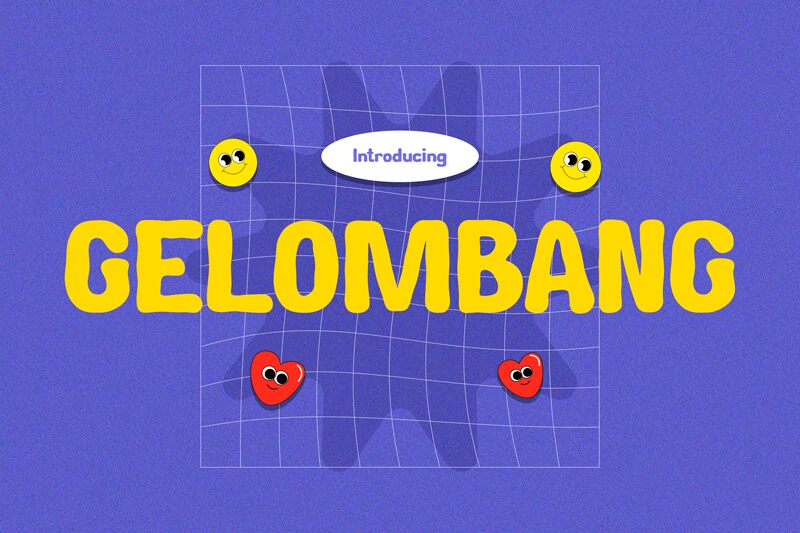
GELOMBANG
Gelombang font by Pinisiart is a free bold cartoon font. Built around a bubbly, tide-like sway, its chunky strokes and soft, inky edges feel hand-pressed rather than machine-cut. The rhythm is springy and upbeat, with generous counters that keep it readable even when you go big. It’s playful without getting messy—a lively blob texture that lands with confidence.
Using Gelombang, headlines pop on kids’ branding, beach festival posters, snack packaging, game titles, YouTube thumbnails, and sticker sheets. This free font shines on colorful backgrounds and loves oversized settings. Pair it with a clean geometric sans for body copy, and let Gelombang handle the splashy bits.